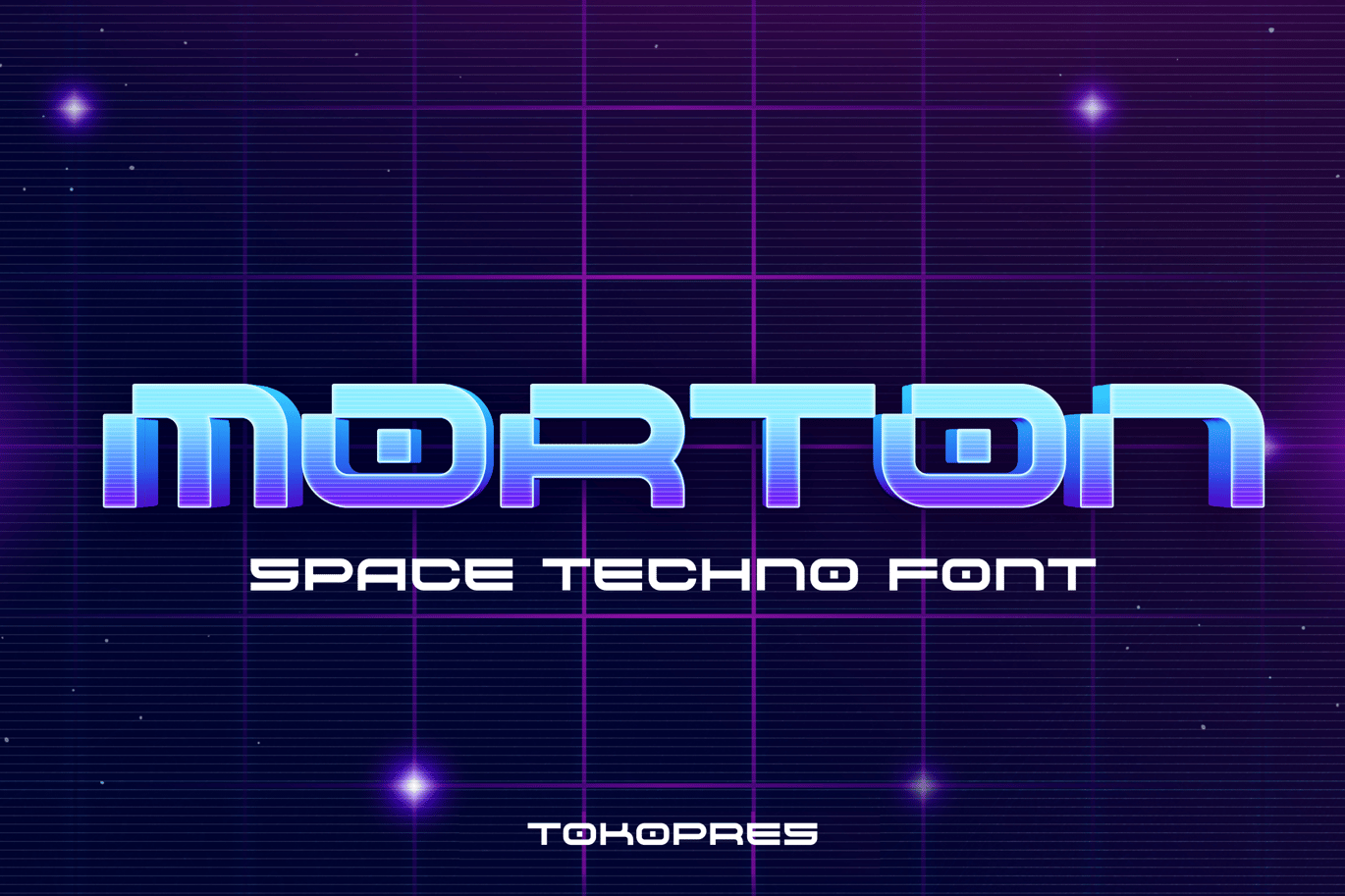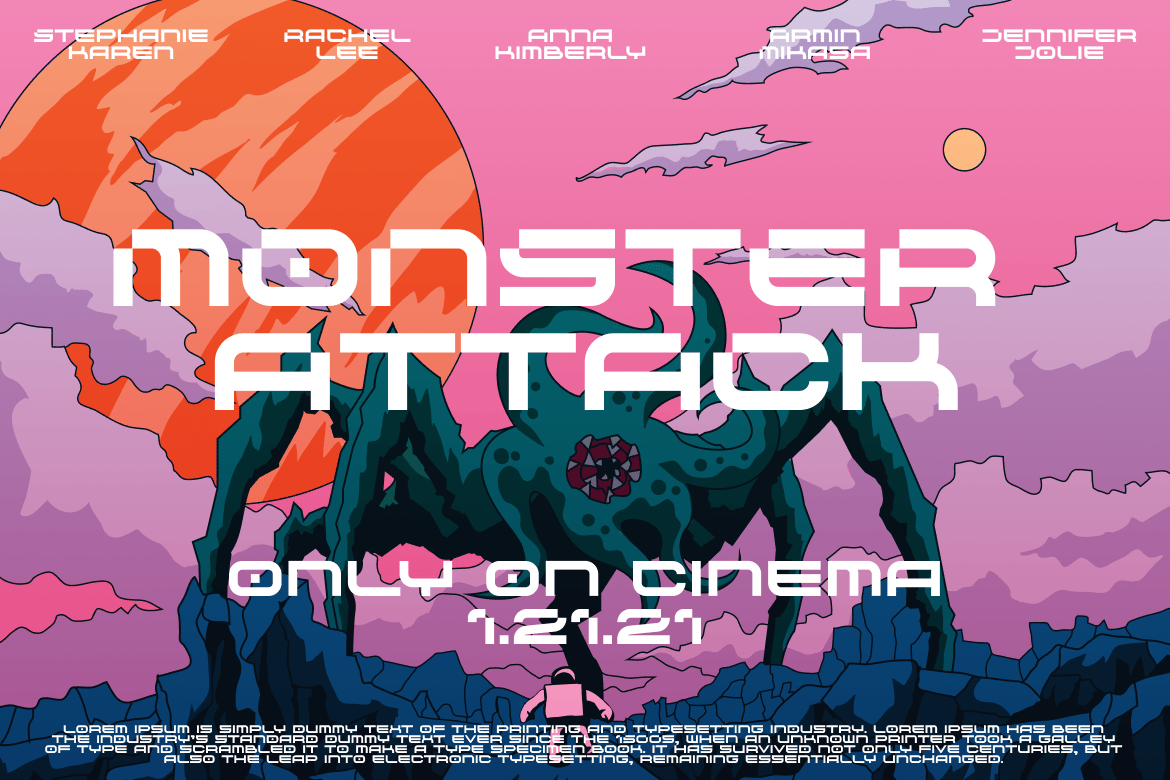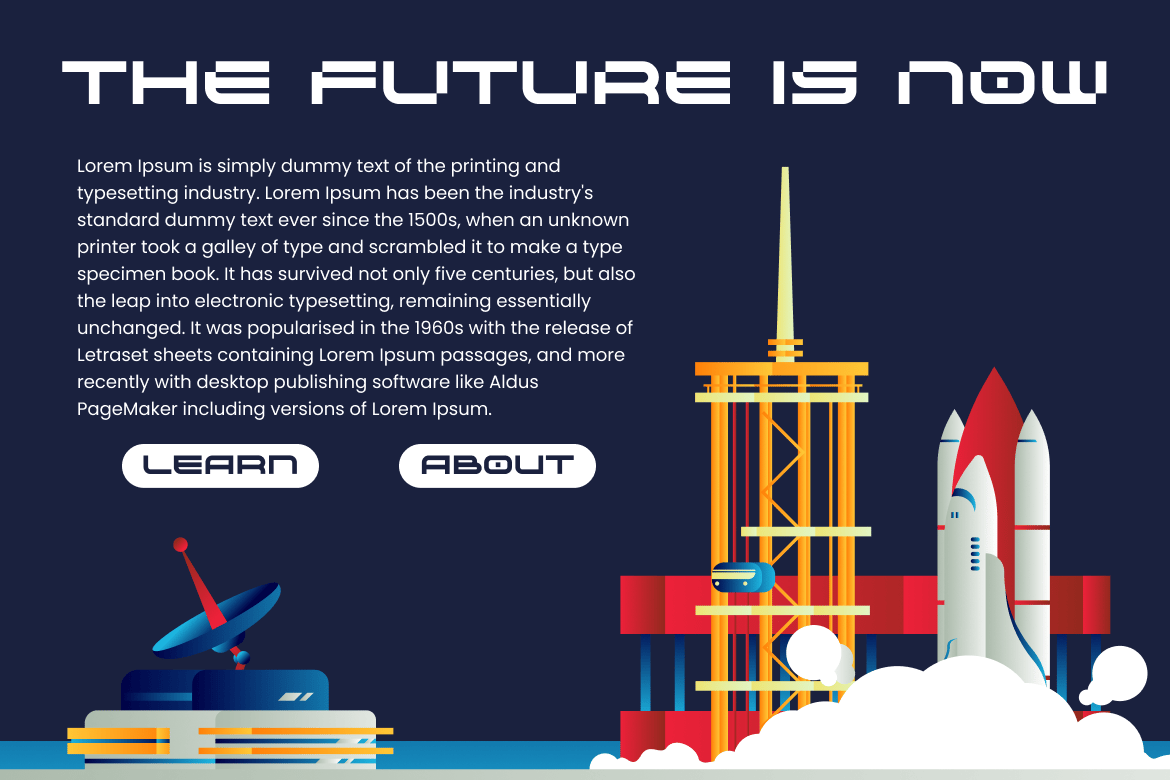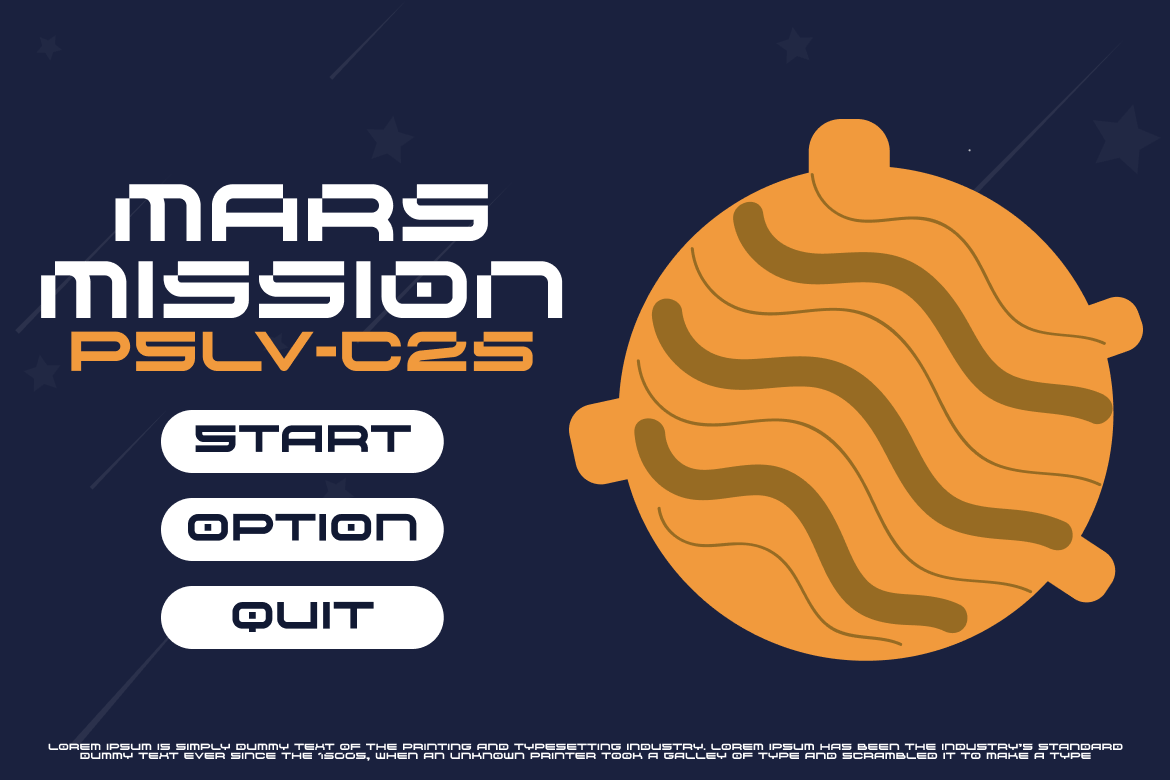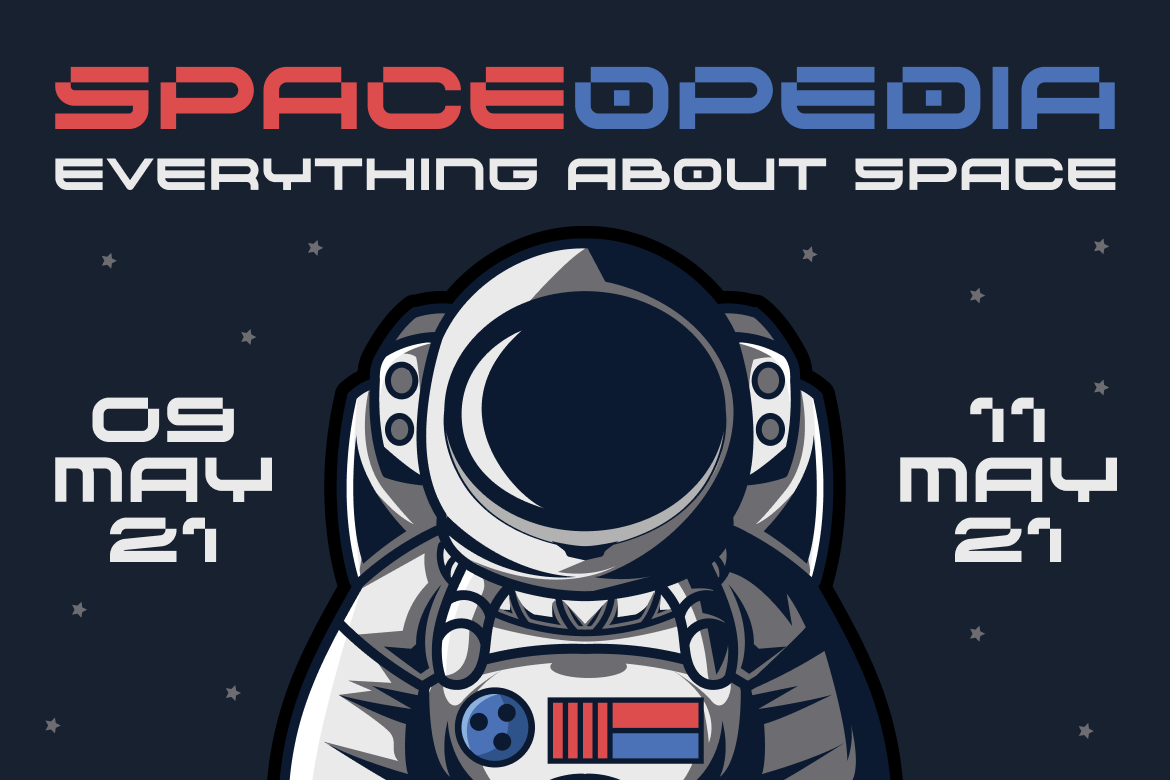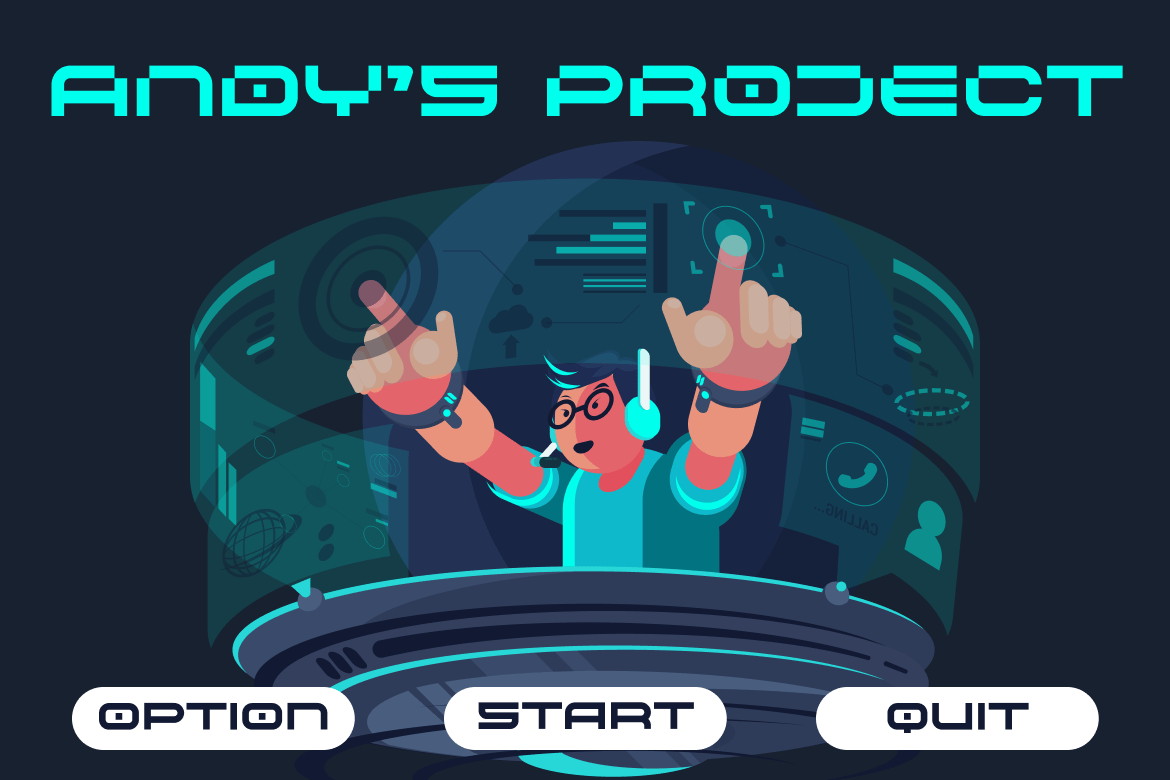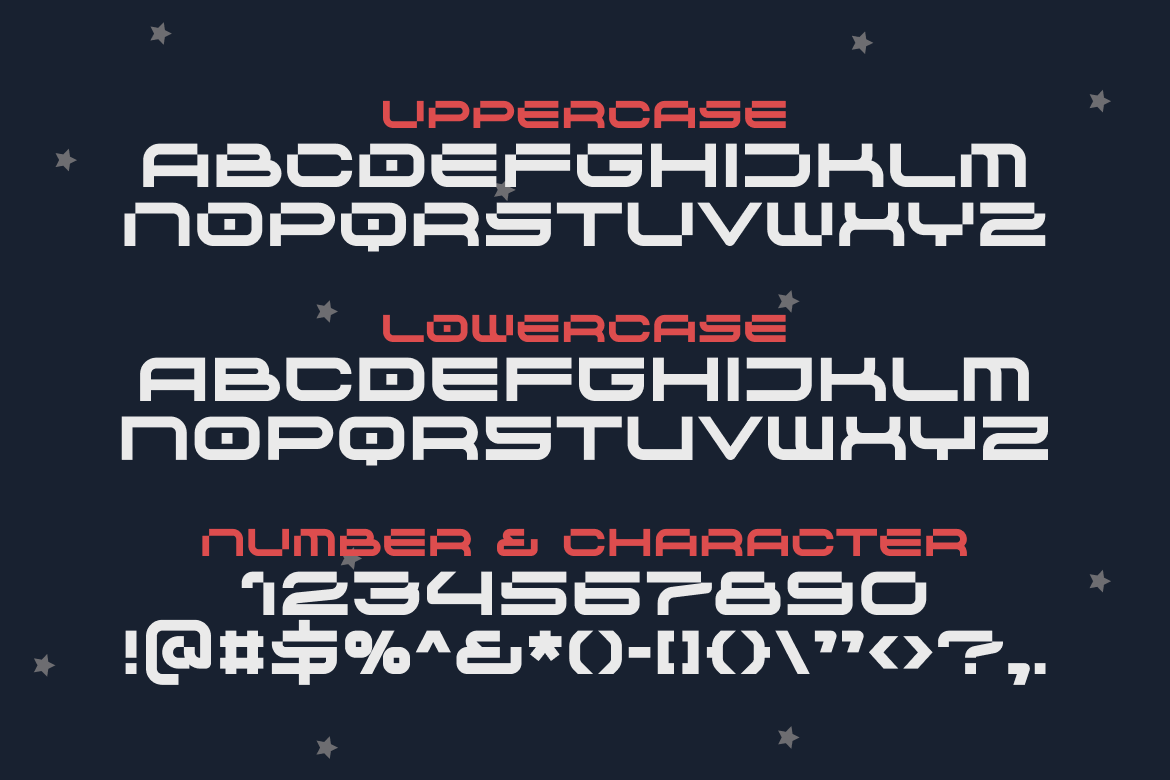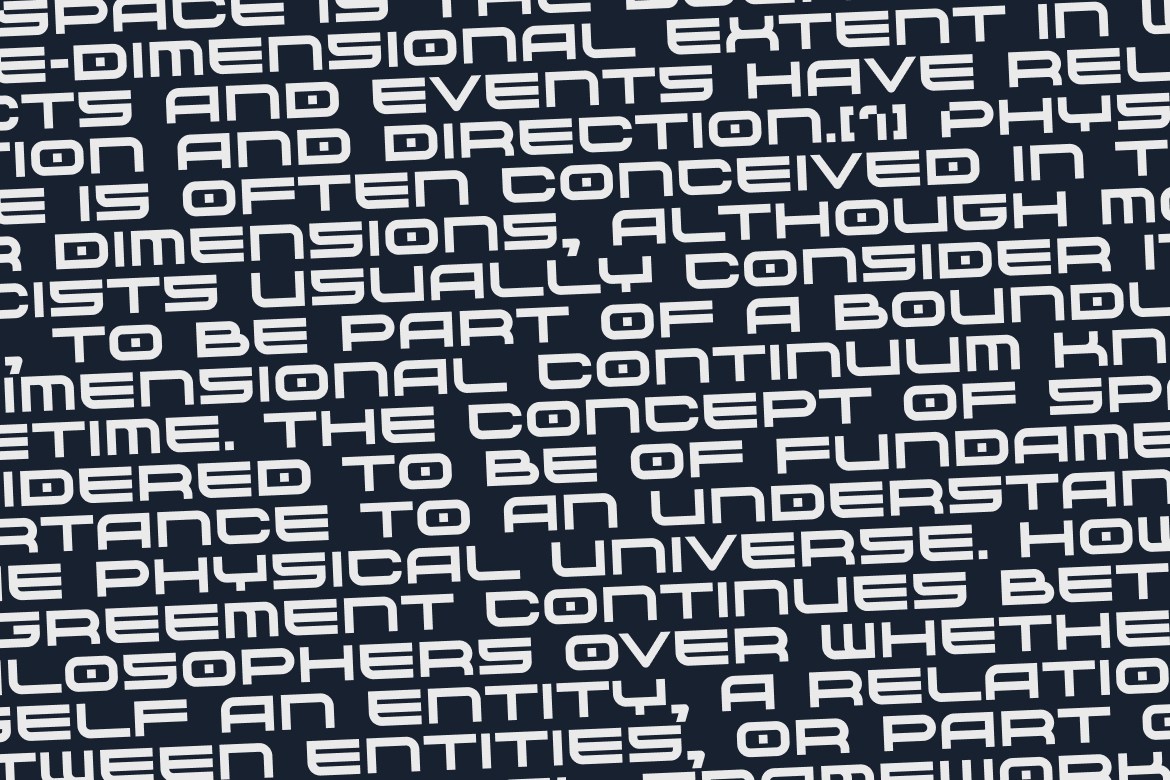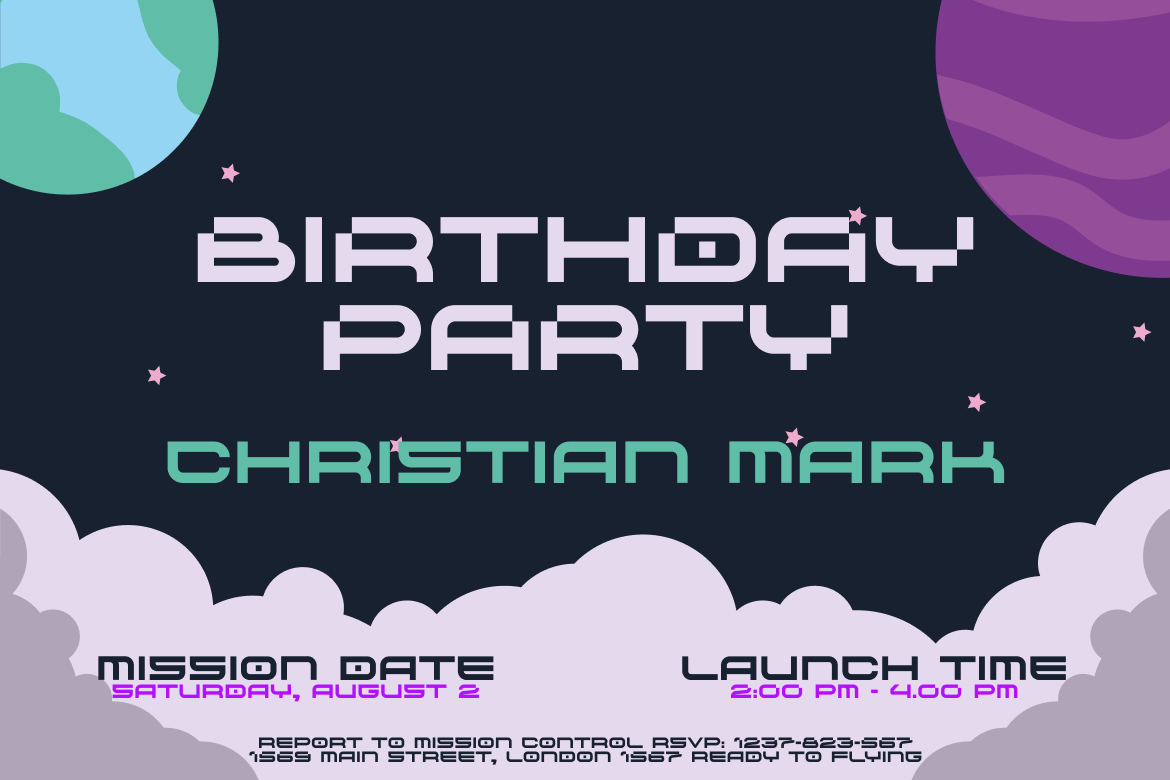
MORTON – Futuristic scifi font
MORTON – techno scifi font
The space, the vast world that always bring curiosity toward human race. Explore it with MORTON. The uppercase have a bit cutout on the corner, while the lowercase stand fully attached as a whole.
Suit perfectly for future and science segmented magazine, poster, movie title, music poster, youtube covers, youtube thumbnails, social media page covers and so on…